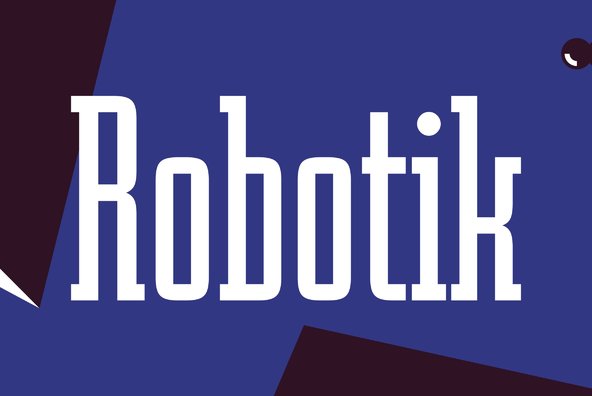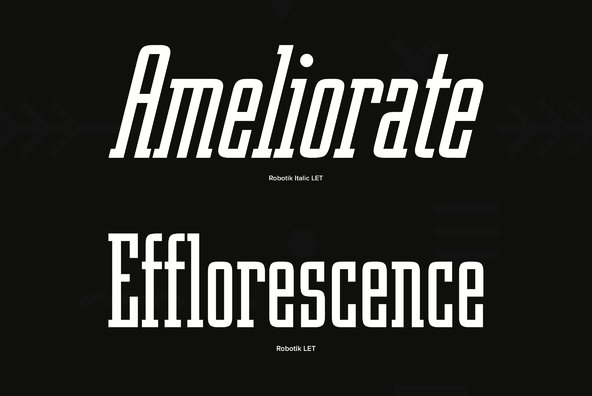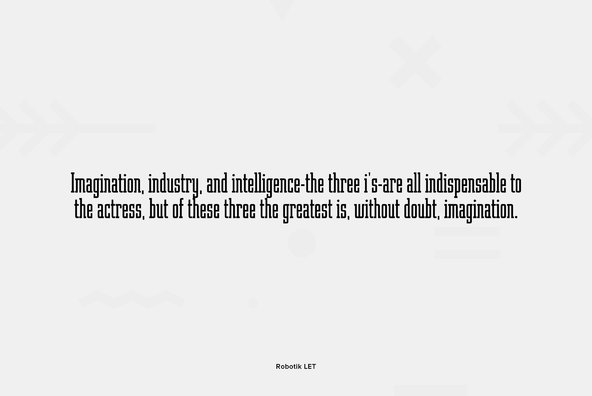
This slab serif Egyptian typeface follows the trend for simple, mechanically constructed typefaces and is an ideal choice for communicating a feeling of precision and strength.
This slab serif Egyptian typeface follows the trend for simple, mechanically constructed typefaces and is an ideal choice for communicating a feeling of precision and strength. Robotik is equally effective when set with normal or wide letter and word spacing. Created by influential British designer David Quay.